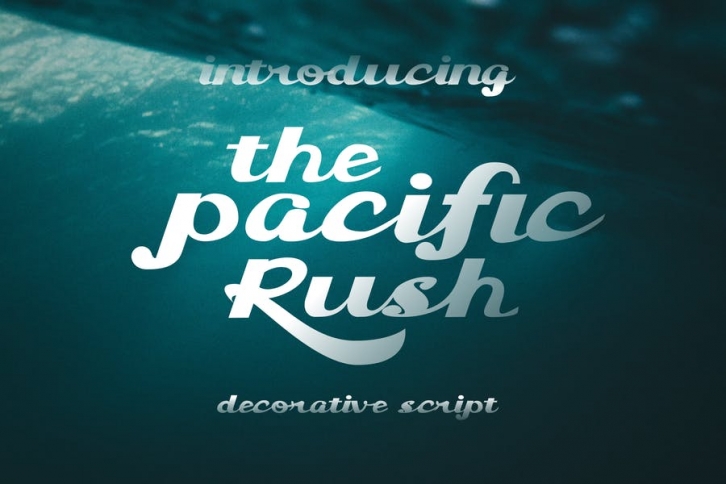
Proudly present our new product The Pacific Rush Font
The Pacific Rush Font is a modern and authentic font. Perfect for both professional and branding needs of a product. This font is suitable for any branding project like quotes, logo, blog header, poster, banding, letter, invitation, stationery, etc... Designed as a versatile and flexible that can be used on a range of projects and mediums.outstanding in a wide range of contexts.